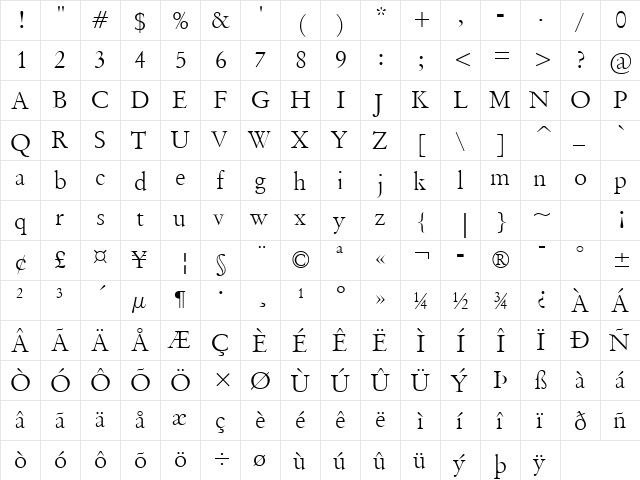
Garamand Classic Light Regular Font Preview
Garamand Classic Light Regular
Garamand Classic Light Regular Font Details
Design Context for Garamand Classic Light Typeface
Garamand Classic Light wears its vintage influences proudly, with letterforms that recall mid-century signage, classic packaging, and nostalgia-driven design. The delicate stroke weight brings airiness and refinement to layouts.
Font Pairing: Combine Garamand Classic Light with a simple slab or neutral sans — period-accurate companions reinforce the vintage feel without competing for attention.
Pro Tip: Use Garamand Classic Light for headlines and pull quotes rather than body copy — its personality is best appreciated in short, focused bursts.